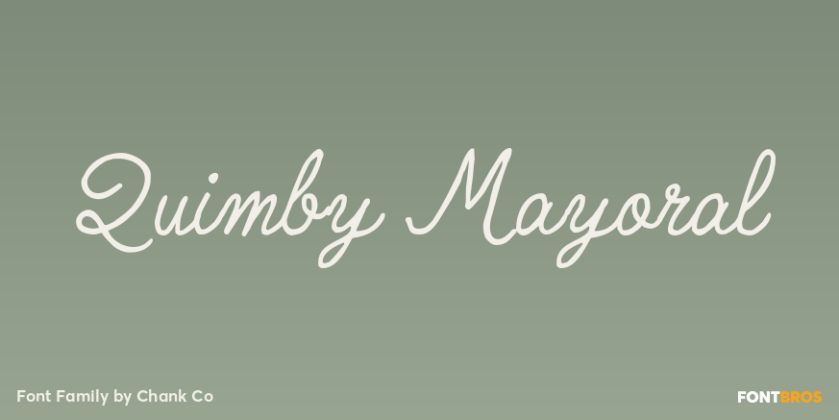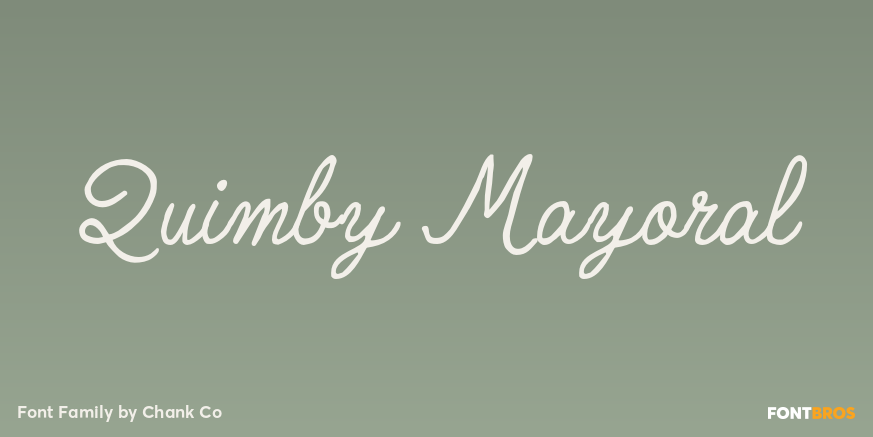
Quimby Mayoral
About Quimby Mayoral
Surprised by the success of his clumsy cursive font Yellabelly, Chank created a cleaner script that is loopy and elegant, but still has a natural hand-drawn character. In all caps, Quimby Mayoral looks like someone dropped a bowl of spaghetti. But when…